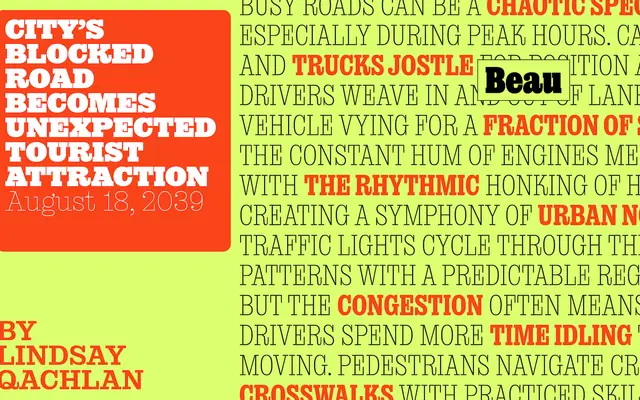
NaN Rage Beau
NaN · Hugues Gentile, Fanny Hamelin, Fadhl Haqq, Léon Hugues, Jean-Baptiste Morizot, Luke Prowse, Florian Runge, Jolana Sýkorová · 2024
A contemporary Clarendon-esque slab-serif spanning nine weights and four widths, balancing organic stroke contrast with bracket-less geometric serifs and ball terminals.
Part of NaN's Rage Typographic Universe, Rage Beau draws on Victorian slab-serif heritage without leaning into period idiosyncrasies. Ball terminals and thick rectangular serifs give it confident structure, while the stroke contrast and generously curved forms soften the geometry enough for sustained text setting. Four widths from Standard to XCondensed and nine weights across each make it adaptable from narrow headline columns to comfortable body copy.
The foundry explicitly describe it as Clarendon-esque with thick rectangular serifs, ball terminals and bracket-less serifs, placing it squarely in the Victorian slab-serif tradition updated with contemporary geometry.